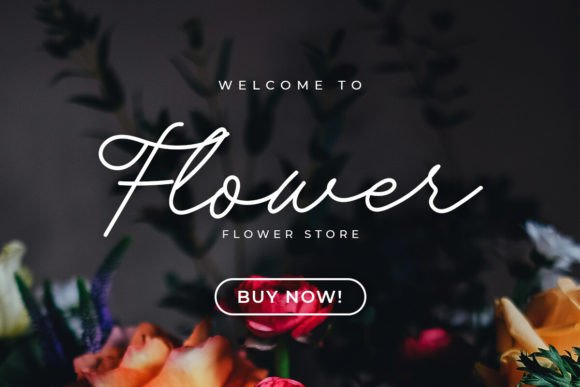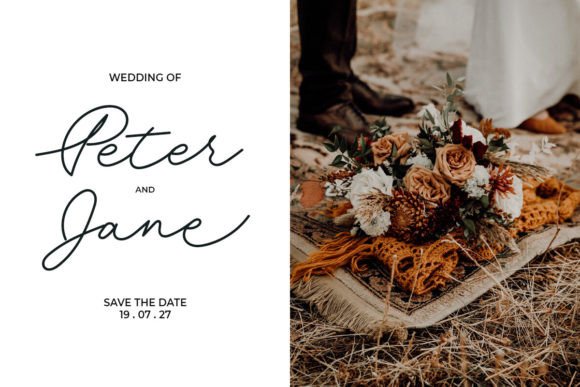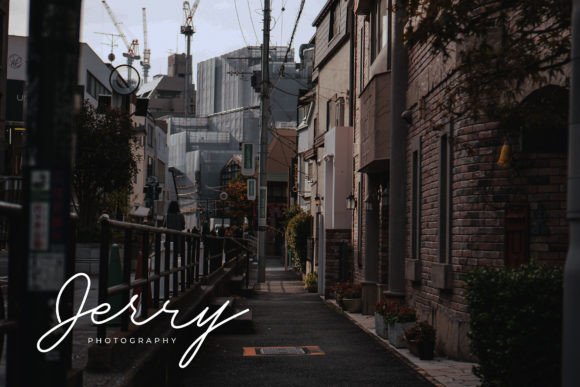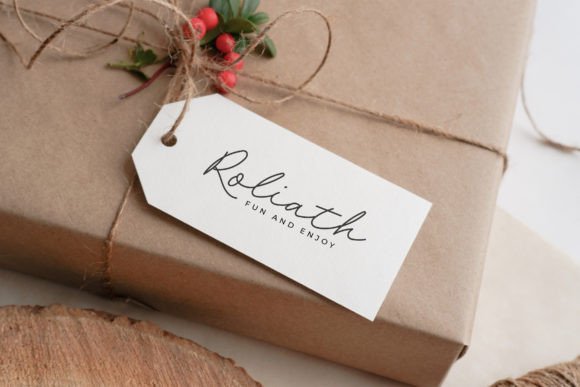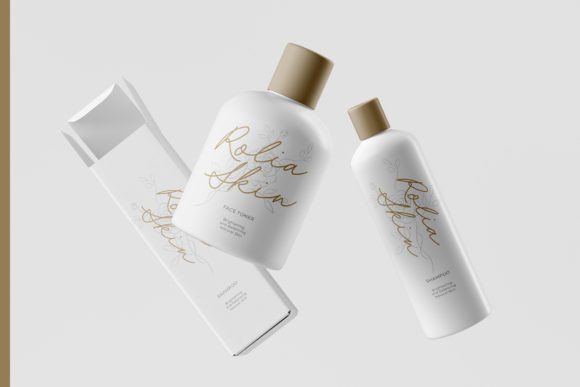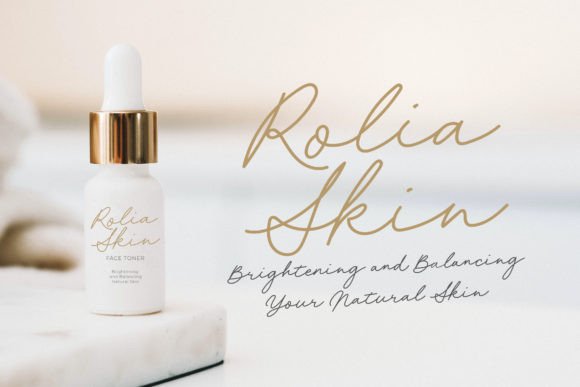
Introduction to Chatty Rolia Font
Chatty Rolia is a monoline handwritten script font that effortlessly combines casual charm and a chic touch.
Its playful strokes and natural flow capture the essence of relaxed elegance, making it the perfect choice for various creative projects Whether youโre designing invitations, branding materials, or social media graphics, Chatty Rolia adds a unique and captivating personal touch.
Key Features of Chatty Rolia Font
Why Choose Chatty Rolia Font?
Chatty Rolia Font offers exceptional quality and versatility, making it a valuable addition to your design toolkit. Whether you’re creating for personal projects or commercial use, Chatty Rolia Font delivers professional results.